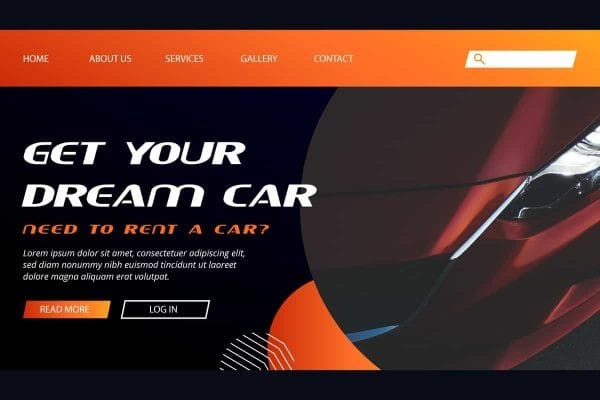
American Car Font
American Car Font is a modern yet fashionable display font that can also used in racing tournament style. This font has bold characters and thin lines that make it look one of a kind. It will be good for any designs, such as advertisement, brand image, custom design, cover, invitation, label, menu, poster, product packaging, quotes, stationery, website page, and more!
American Car Font includes a full set of ALL CAPS for Uppercase and Lowercase Letters, Numerals, and large range of Punctuation. This stylish font with a racing vibe will be suitable for various industries, such as accessories, café, event or festival, fashion, game, movie, printing, publishing, sports, etc.